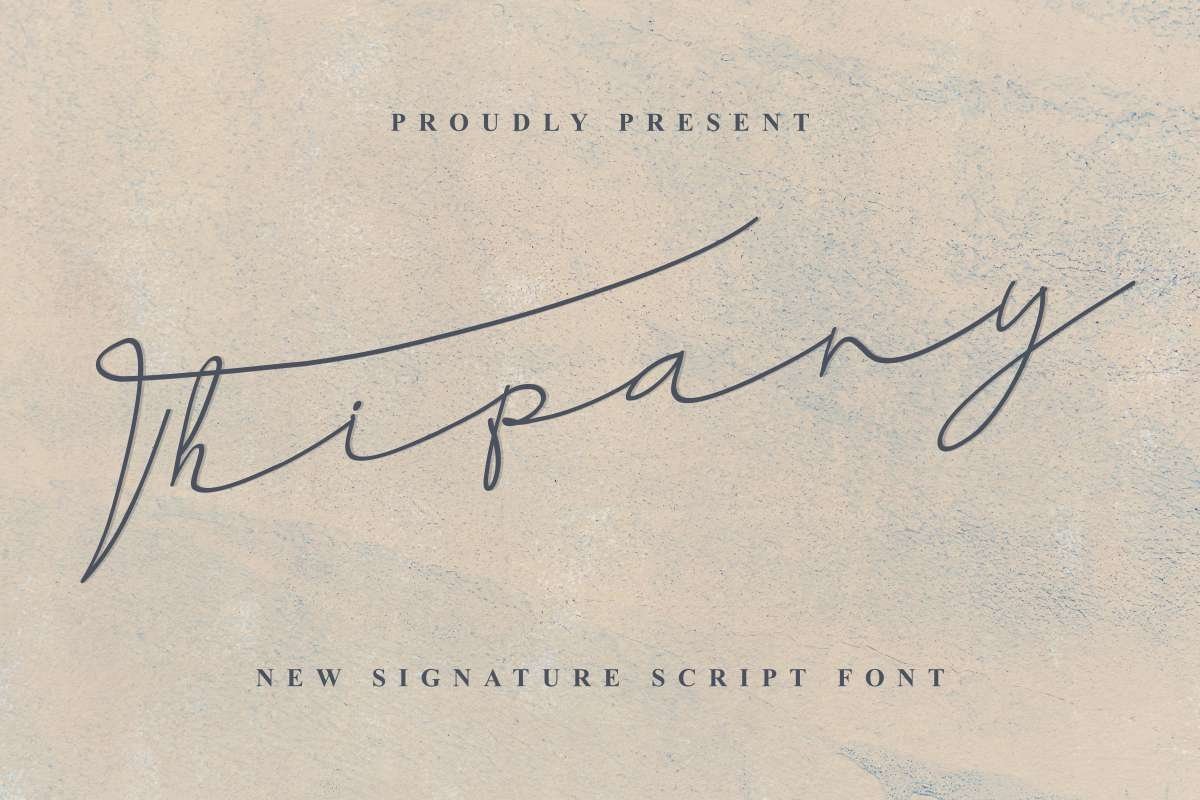
Thipany
Hello Good People!In 2020, we at Edric Studio,. Present to you! our newest font family : Thipany Signature Font
This is a signature script font. It has uniquely elegant glyhps. This font will be great for branding, logo, stationery, business card, signage, flyer, brochure etc. There are many industries that is suitable for this font : construction, real estate, services, law firm, make up etHere’s , you will get on the package: